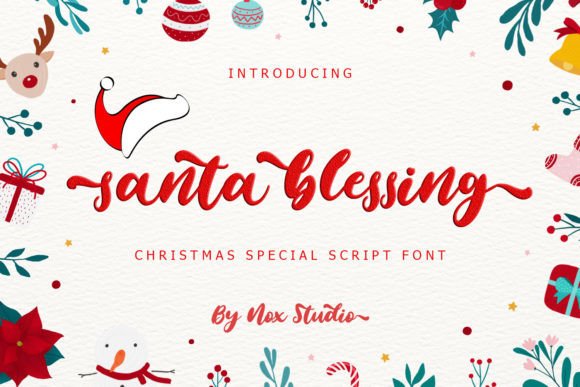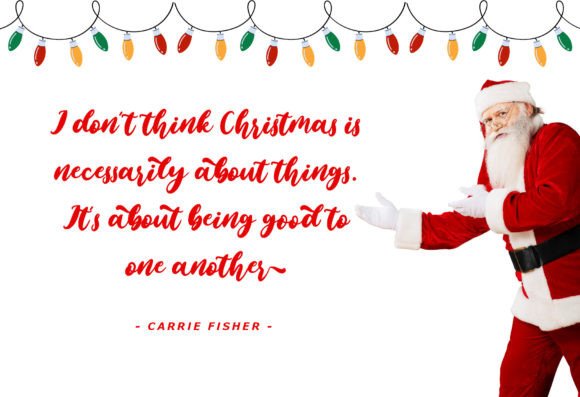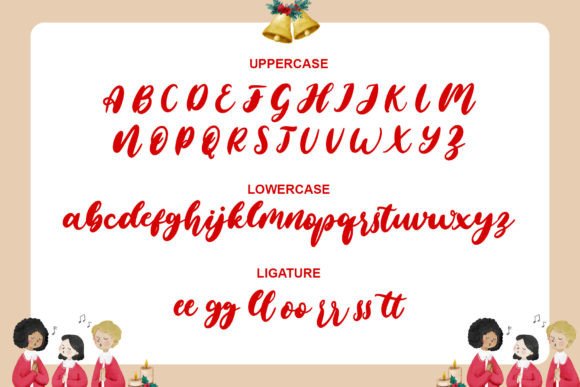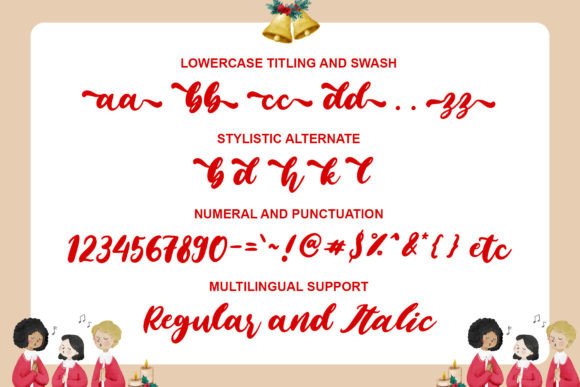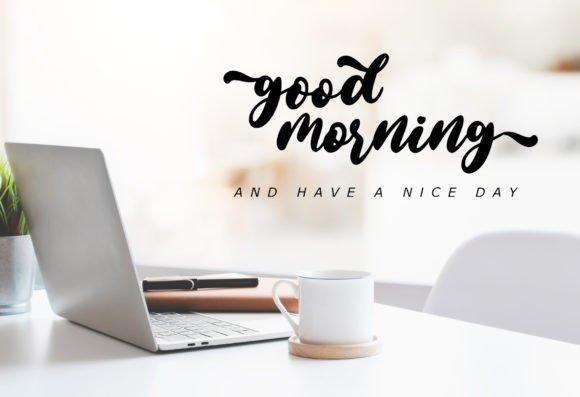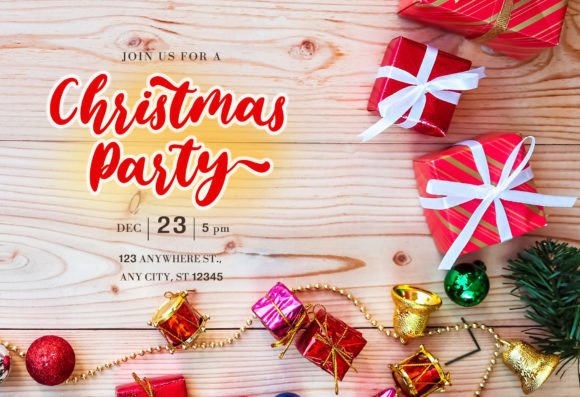
Santa Blessing Font
About Santa Blessing Font
Santa Blessing is a dazzling and timeless handwritten font. It is the best choice for all your Christmas season projects. This font is PUA encoded which means you can access all the glyphs and sweeps easily!